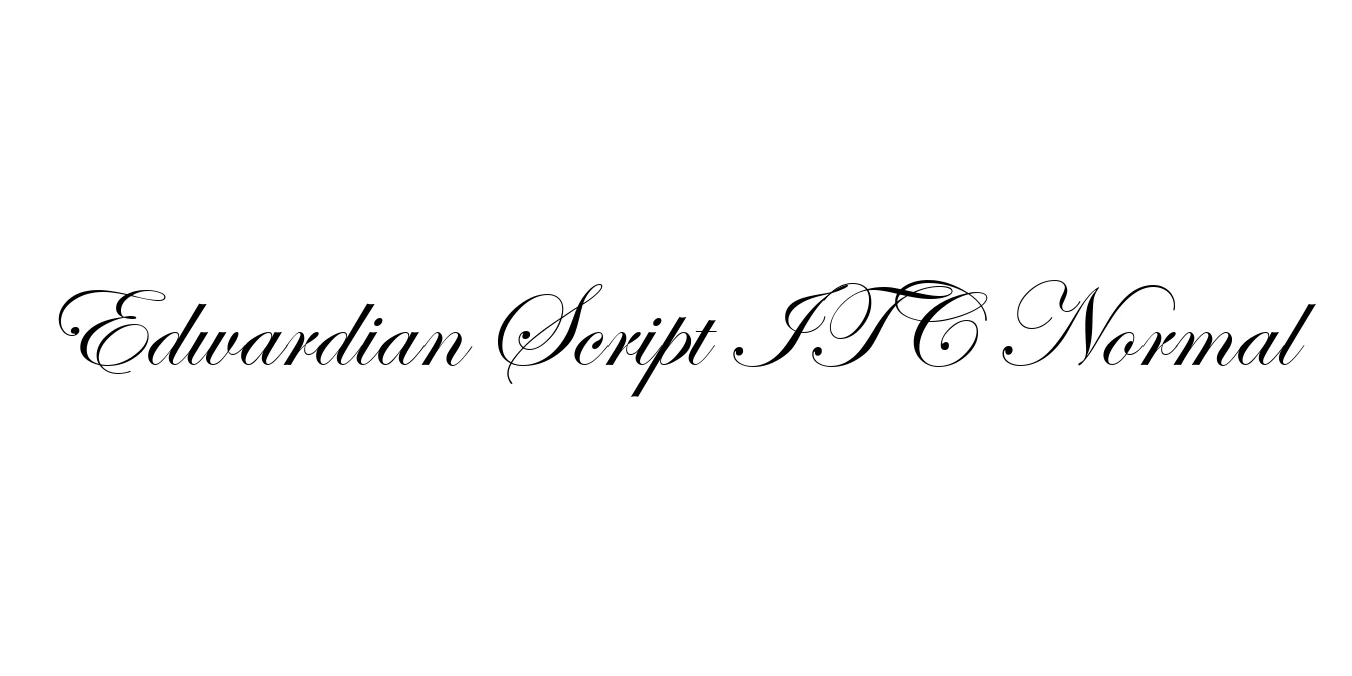
Edwardian Script ITC Normal
Designed by Edward Benguiat
Edwardian Script ITC was designed by the legendary typeface designer Edward Benguiat in 1994. This typeface is a sophisticated, lyrical, and passionate calligraphic script that draws inspiration from the steelpoint pen techniques of the late 19th century. It captures an era of elegance and refinement, characterized by its fluid, interconnected letterforms and varied stroke weights.
The font is renowned for its elaborate flourishes and decorative loops, which provide a hand-rendered appearance that feels both personal and highly formal. Due to its intricate design and delicate nature, it has become a definitive choice for high-end stationery and formal announcements, standing as a primary example of modern digital copperplate calligraphy.
Edwardian Script ITC Normal Best Uses
The go-to choice for classic and sophisticated wedding stationery.
Adds a sense of prestige and history to official documents.
Perfect for high-end logos, perfume packaging, and boutique signage.
Ideal for holiday cards and formal thank-you notes.